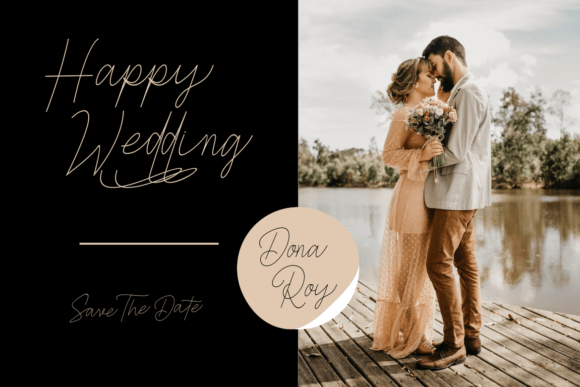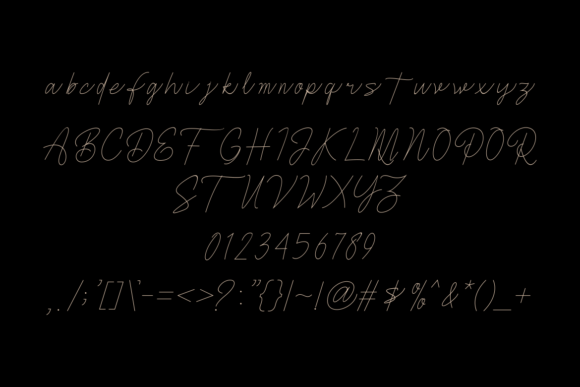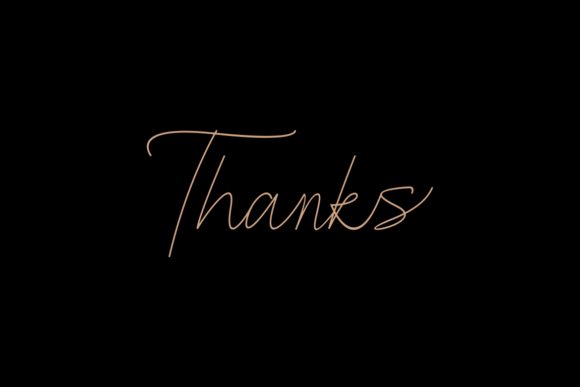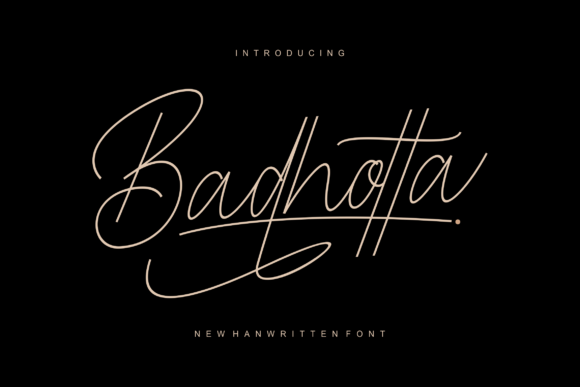
Introducing Badhotta Font: Elevate Your Designs with Elegance and Sophistication
Are you tired of using the same old fonts in your designs? Look no further than Badhotta Font, a stunning handwritten font that is sure to take your creative projects to the next level. With its natural and elegant style, Badhotta Font is the perfect addition to any designer’s toolkit. In this article, we’ll explore the features and benefits of Badhotta Font, and show you how to incorporate it into your designs to create authentic pieces of art.
The Story Behind Badhotta Font
Badhotta Font is a unique and beautiful handwritten font that has been crafted with love and care. Its natural and elegant style makes it perfect for a wide range of design applications, from branding and advertising to packaging and digital media. Whether you’re a professional designer or a crafty DIY enthusiast, Badhotta Font is sure to inspire your creativity and help you to create stunning designs that stand out from the crowd.
Key Features of Badhotta Font
- Natural and Elegant Style: Badhotta Font features a beautiful, handwritten style that is both natural and elegant. Its flowing lines and curves make it perfect for creating sophisticated and eye-catching designs.
- Highly Versatile: Badhotta Font is highly versatile and can be used in a wide range of design applications, from print to digital media.
- Easy to Read: Despite its elegant style, Badhotta Font is highly legible and easy to read, making it perfect for use in body text and other applications where readability is key.
- Unique and Authentic: Badhotta Font is a unique and authentic font that will help your designs to stand out from the crowd.
- Pair it with Other Fonts: Badhotta Font pairs well with a wide range of other fonts, from sans-serif fonts like Arial and Helvetica to serif fonts like Times New Roman and Georgia.
- Use it in Headlines and Titles: Badhotta Font is perfect for use in headlines and titles, where its elegant style can really shine.
- Experiment with Different Colors and Textures: Badhotta Font looks great in a wide range of colors and textures. Experiment with different combinations to find the one that works best for your design.
Inspiration and Ideas for Using Badhotta Font
Badhotta Font is a versatile font that can be used in a wide range of design applications. Here are a few ideas to get you started:
- Branding and Advertising: Use Badhotta Font to create stunning logos, advertisements, and marketing materials that will help your brand to stand out.
- Packaging Design: Add a touch of elegance and sophistication to your packaging designs with Badhotta Font.
- Digital Media: Use Badhotta Font in your digital media projects, such as videos, social media graphics, and website designs.
- Crafting and DIY Projects: Badhotta Font is perfect for use in crafting and DIY projects, such as handmade cards, gift tags, and scrapbooking.
Badhotta Font is a gorgeous handwritten font that is sure to elevate your designs to the next level. With its natural and elegant style, highly versatile design, and ease of use, Badhotta Font is the perfect addition to any designer’s toolkit. Whether you’re a professional designer or a crafty DIY enthusiast, Badhotta Font is sure to inspire your creativity and help you to create stunning designs that stand out from the crowd.